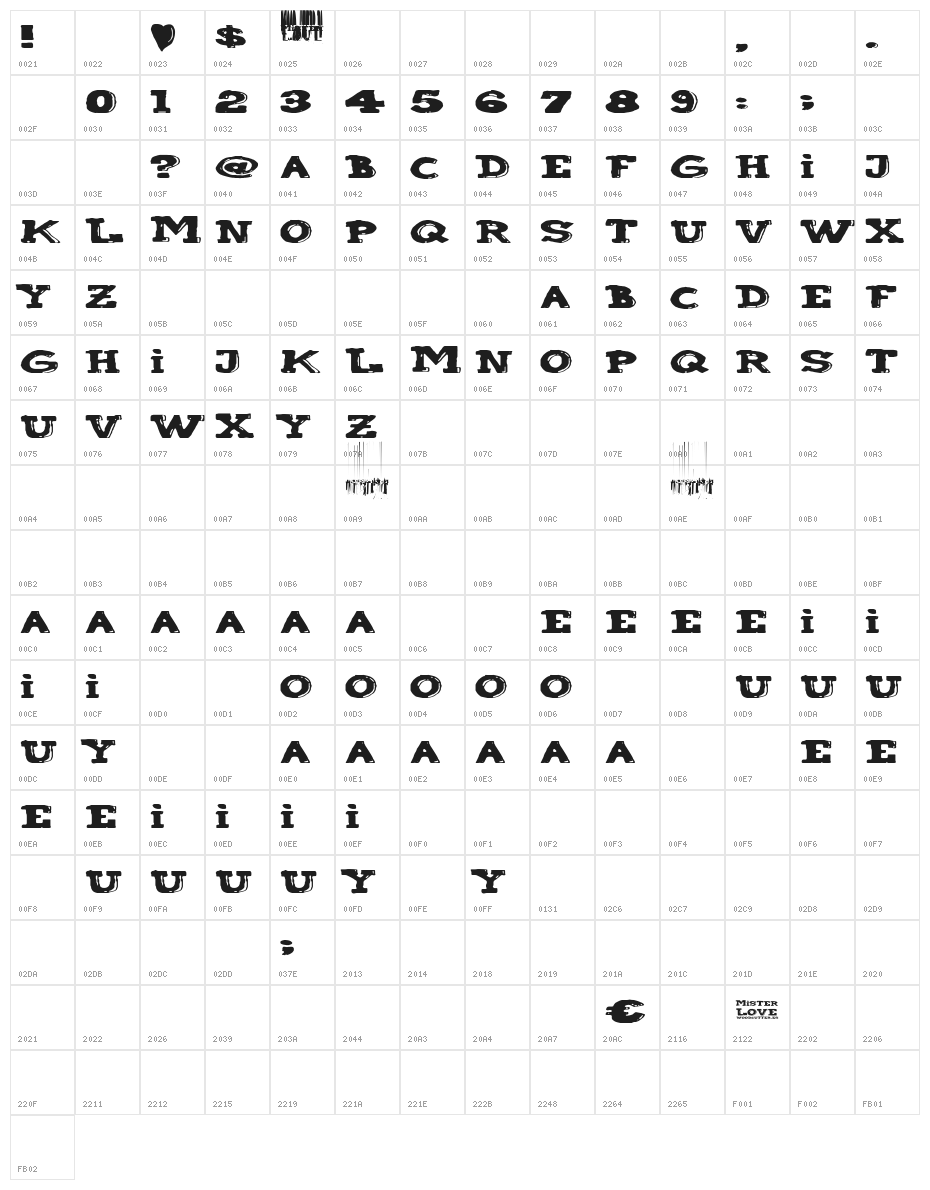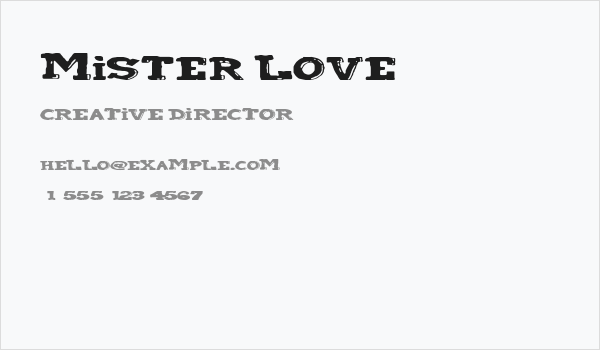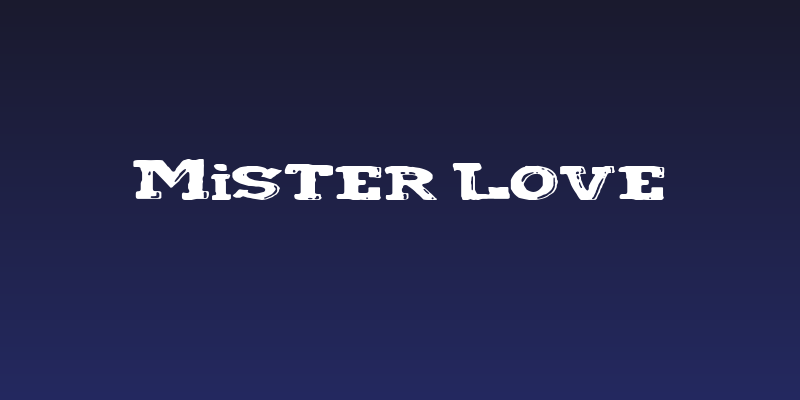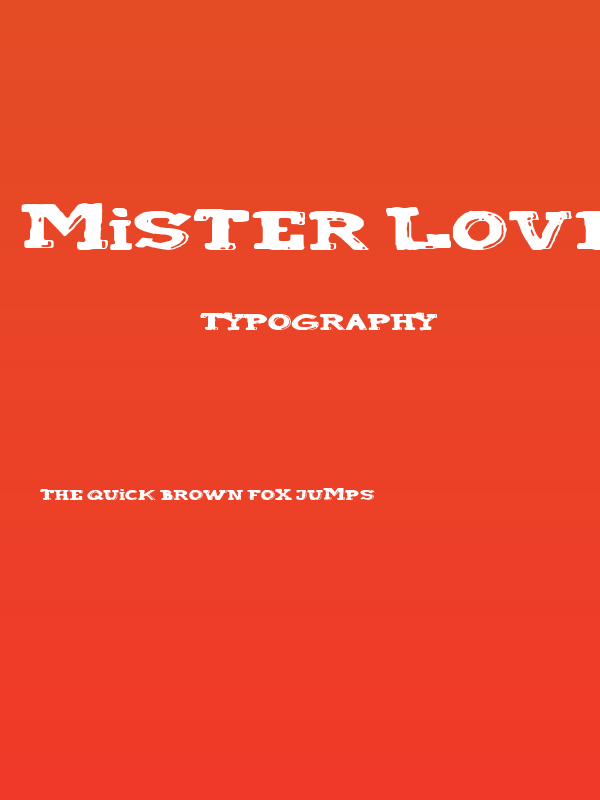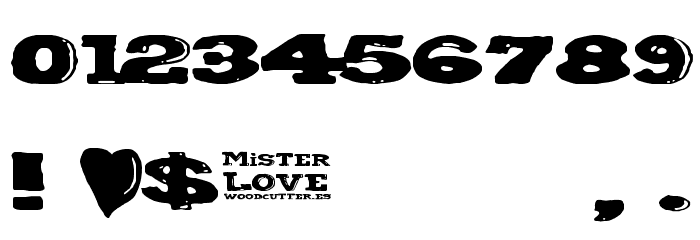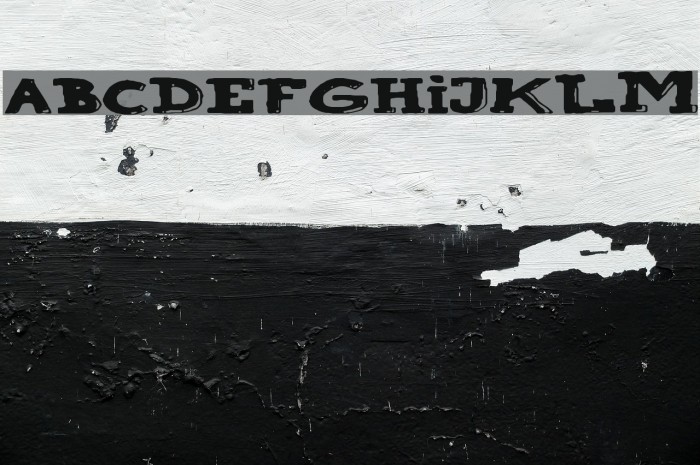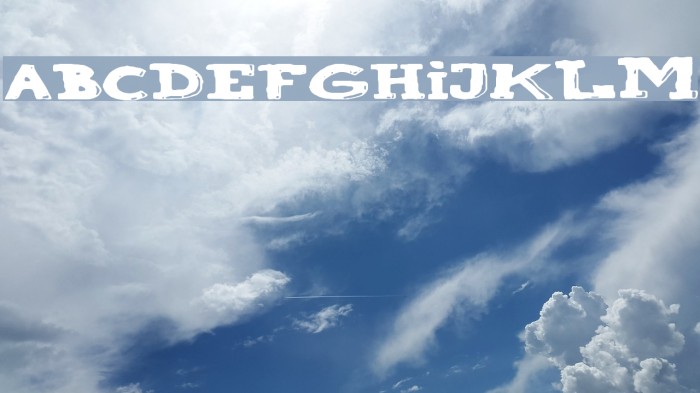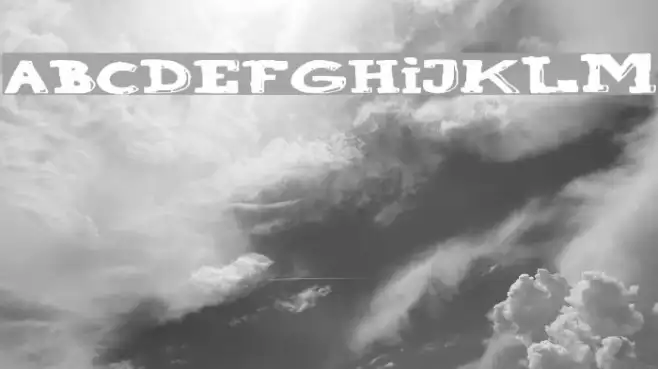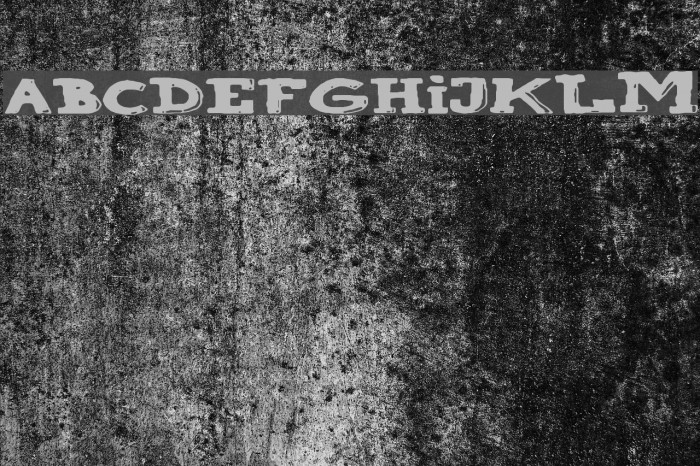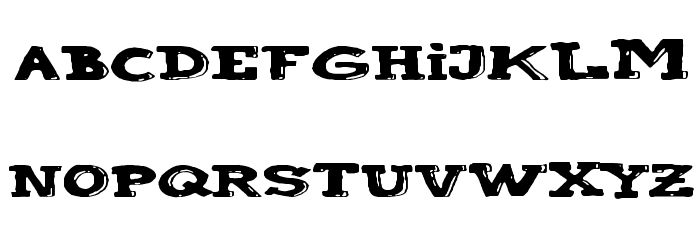
Mister Love Font
Mister Love Description
This font features a bold and playful design with a slightly distressed appearance, giving it a vintage and handcrafted feel. The characters are thick and robust, with irregular edges that add a sense of whimsy and uniqueness. The uppercase and lowercase letters maintain a consistent style, with the uppercase being more pronounced. Numbers and special characters follow the same bold and quirky aesthetic, making them stand out. The font's overall style is reminiscent of retro signage or posters, perfect for projects that require a touch of nostalgia and creativity.
| Overall Style | Vintage, Decorative |
| Proposed Projects | Ideal for retro-themed posters, creative branding, playful packaging, and eye-catching headlines. |